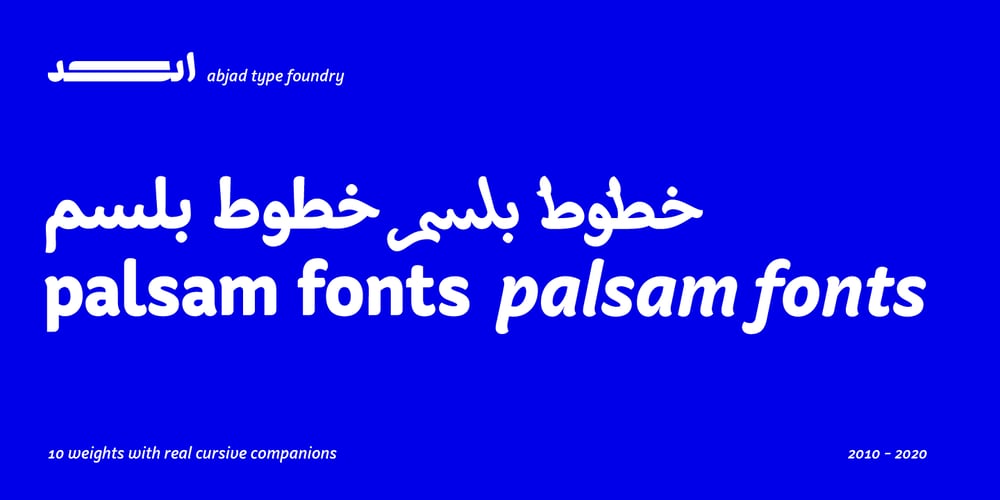
Palsam Arabic
Palsam Arabic font
Palsam Arabic Font Family was designed by Ali Almasri and published by Abjad. Palsam Arabic contains 10 styles and family package options. Since the beginning, Palsam was intended to be a super multilingual family, with a real cursive Arabic companion, and a display cut. The typeface was designed to be used for setting text and titles of contemporary Arabic content, specially magazines, and websites. The Arabic and Latin scripts were designed at the same time, to make a true authentic bilingual typeface. Both scripts have affected each other in several ways through the entire design process, which happened within ten years.Palsam has an inviting, approachable, fashionable and humanist look. Thanks to its low contrast, open apertures, detailed calligraphic strokes, and smooth counters, which also make it easy to read at smaller sizes.The main highlight for Palsam was the Cursive companion. For the first time, the calligraphic Ijaza style was used as a model for designing the Arabic cursive. Since the Ijaza is a hyper combination of Naskh and Thuluth, which makes it perfect to be a companion for the upright Naskh. Moreover this script was used in margins, and to highlight specific content inside a paragraph in older manuscripts. With true cursive companions in five weights, and many opentype features, Palsam grants all the tools needed to set complex information and editorial designs applications. More than 1000 characters are included per weight, including small caps, fractions, old style and lining numbers, ligatures, contextual ligatures, and discretionary ligatures. It supports over 40 languages that use the Latin extended, as well as Arabic, Farsi, and Urdu Languages. PalsamArabic only covers the Arabic script. The latin script was designed in collaboration with the Slovenian type designer Alja Herlah.